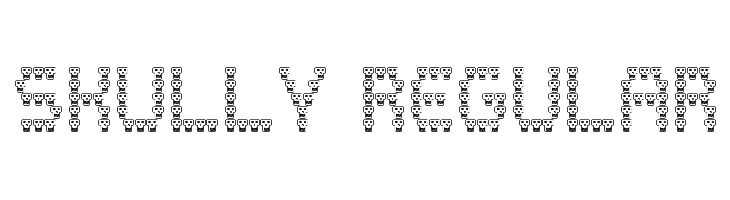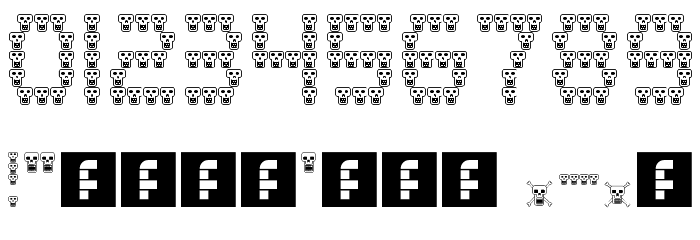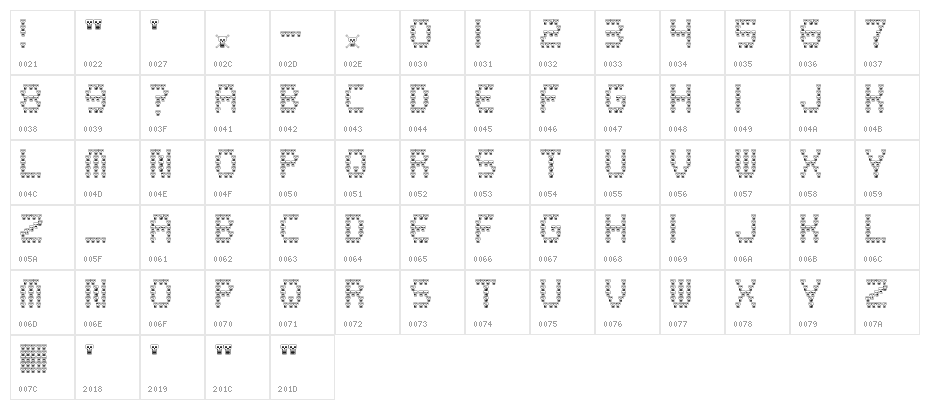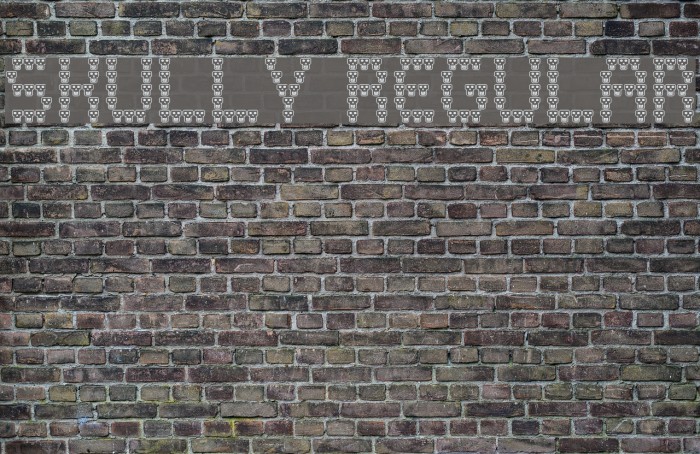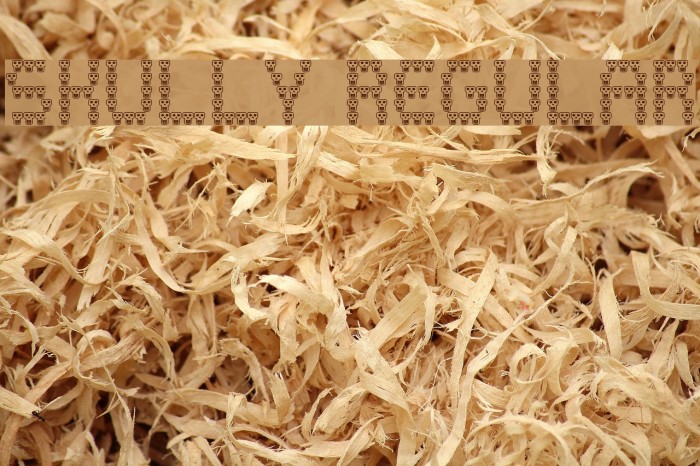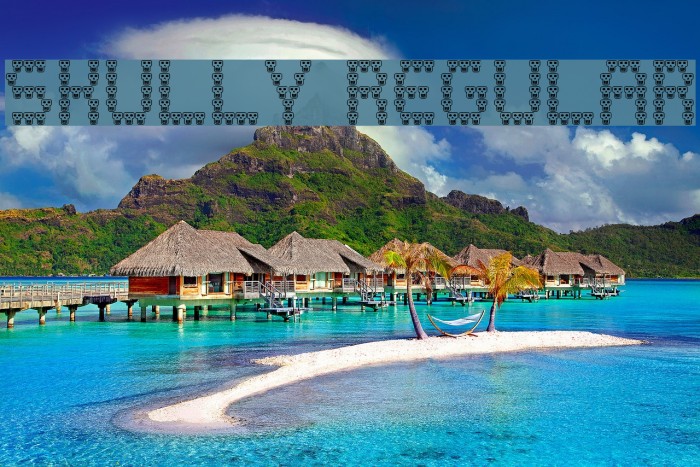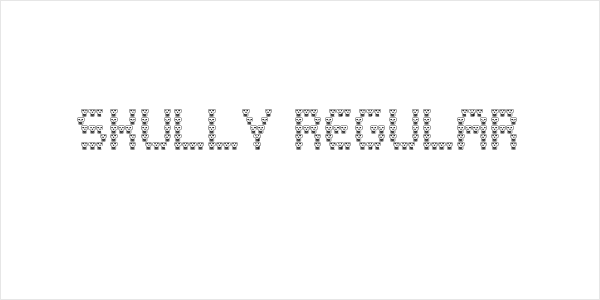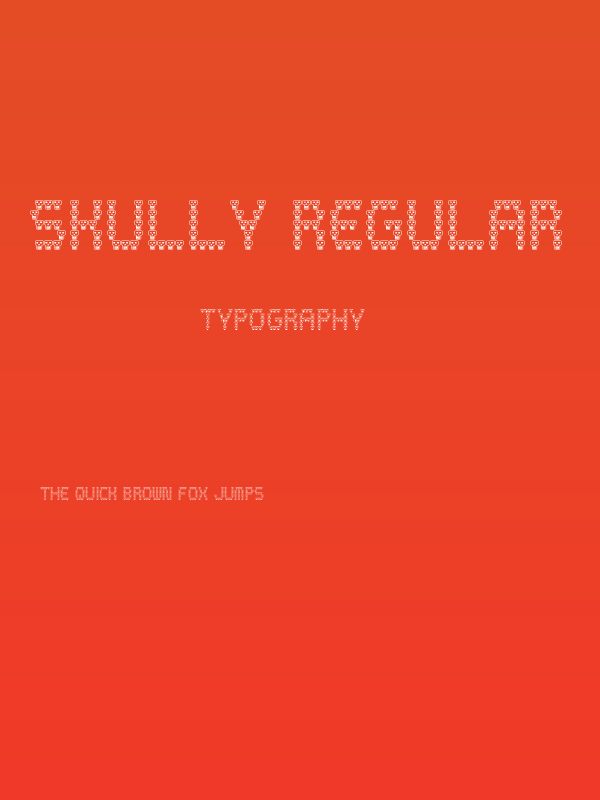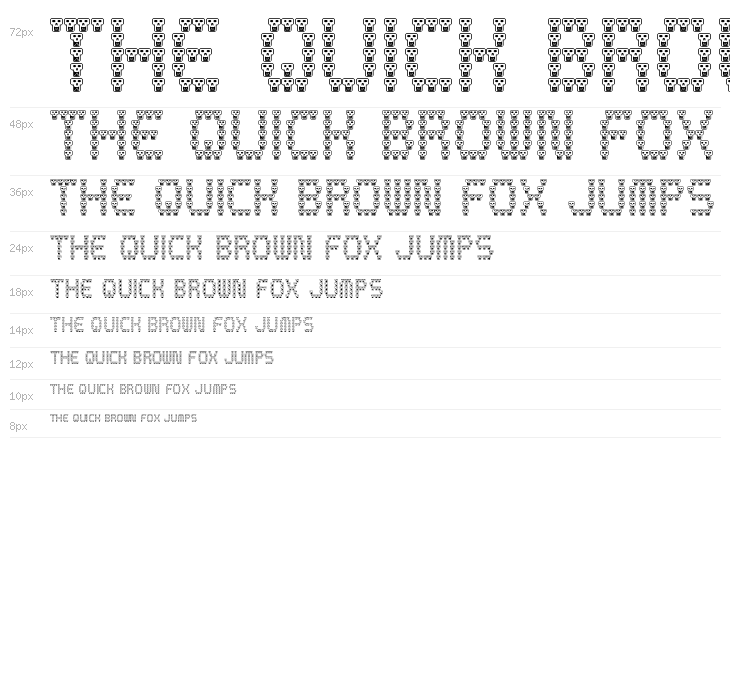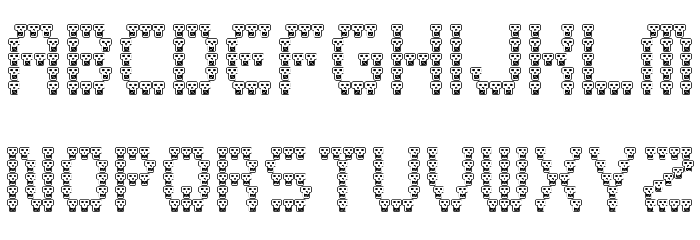
skully Regular Font
skully Regular Description
This font features a playful and spooky design, with each character composed of small skull icons. The letters are blocky and bold, creating a striking visual impact. The skull motif is consistent across uppercase, lowercase, numbers, and special characters, making it ideal for Halloween-themed projects or any design requiring a touch of the macabre. The font maintains a uniform structure, with each character clearly defined by the arrangement of skulls, ensuring readability despite its decorative nature.